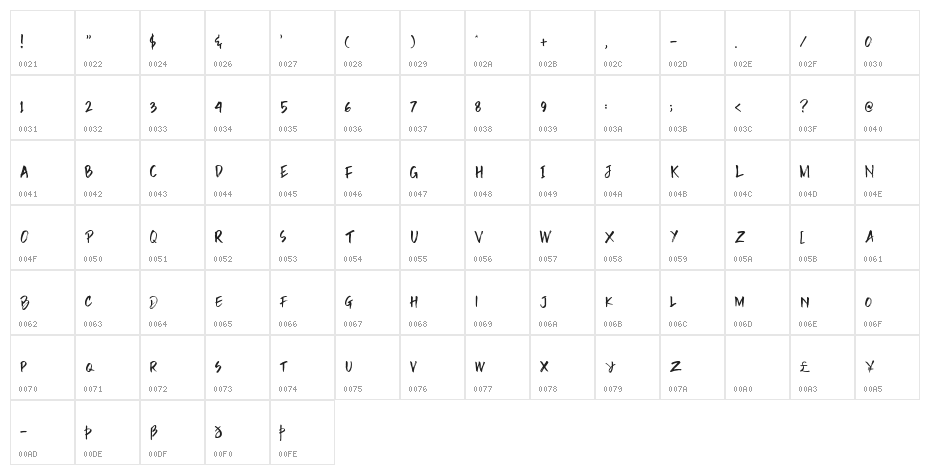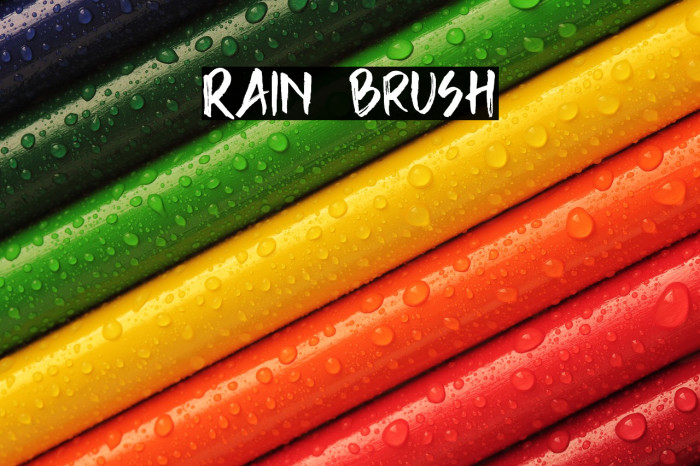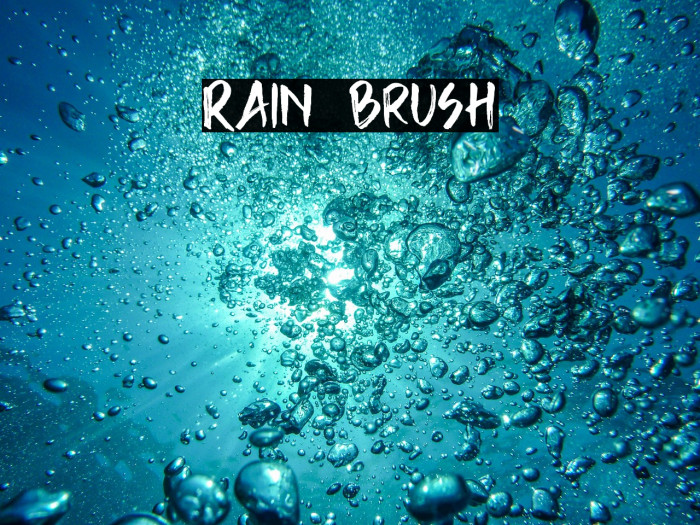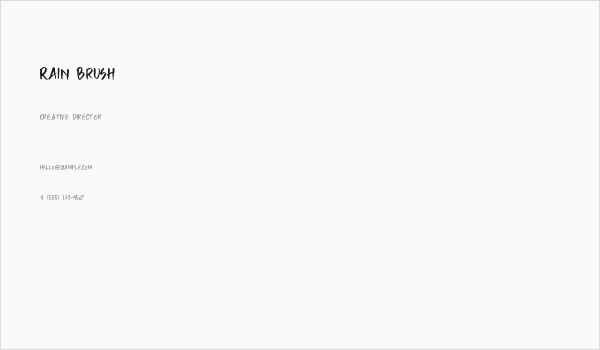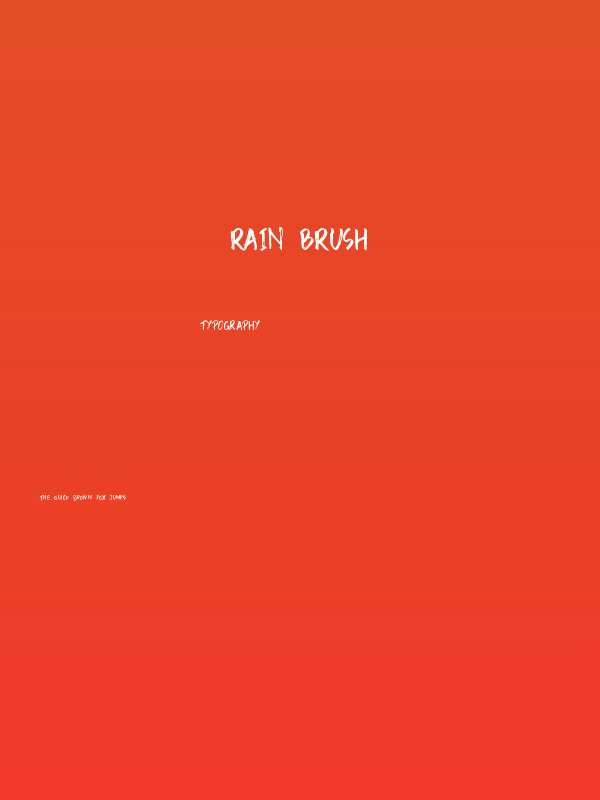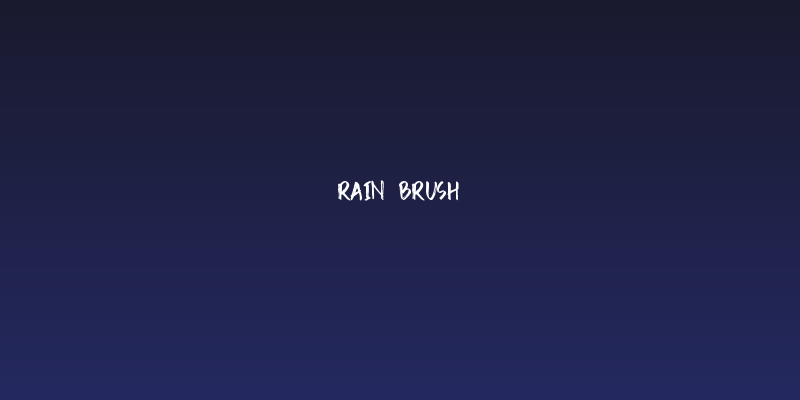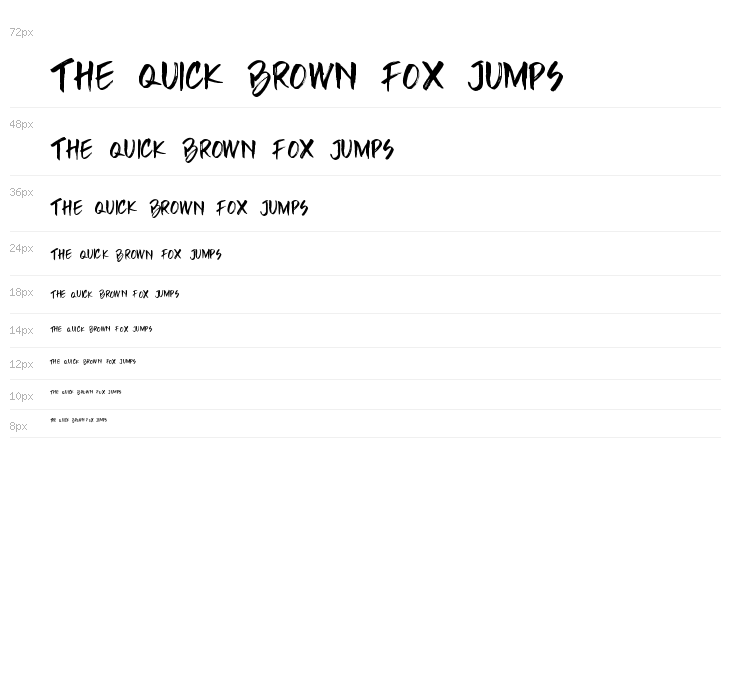
Rain Brush Font
Rain Brush Description
This font features a dynamic and expressive brush style, characterized by its bold and energetic strokes. The letters have a hand-painted appearance, with varying thicknesses that create a sense of movement and fluidity. The uppercase and lowercase characters maintain a consistent style, while the numbers and special characters complement the overall aesthetic. The font's irregular edges and organic flow give it a natural, artistic feel, making it ideal for creative and informal designs.
| Proposed Projects | Ideal for artistic projects, posters, branding, and social media graphics that require a creative and informal touch. |